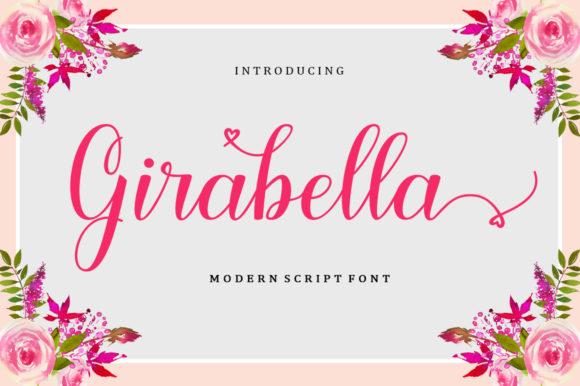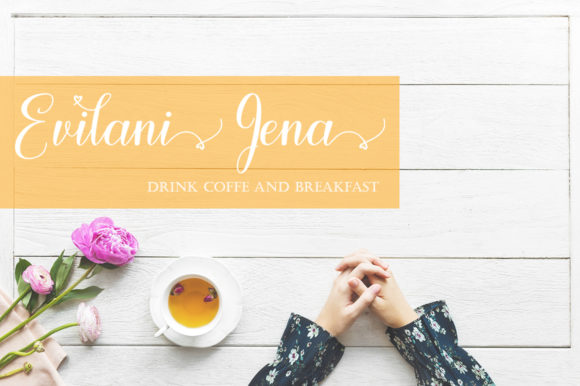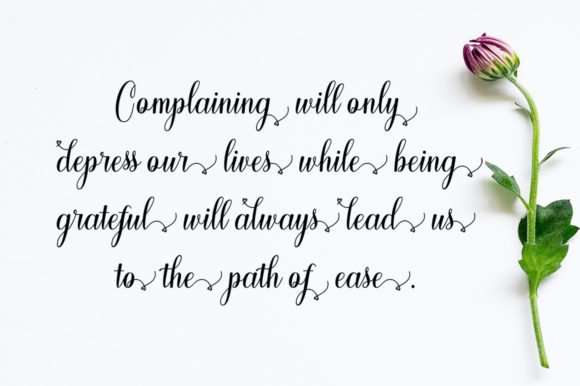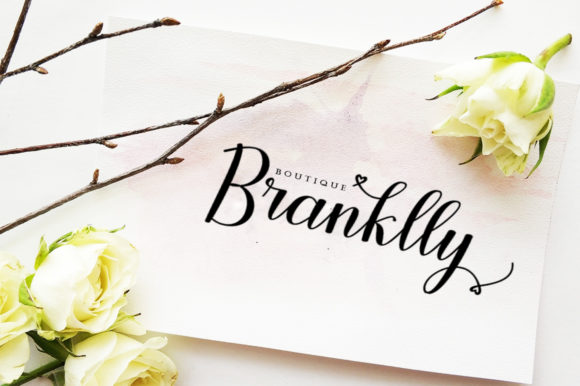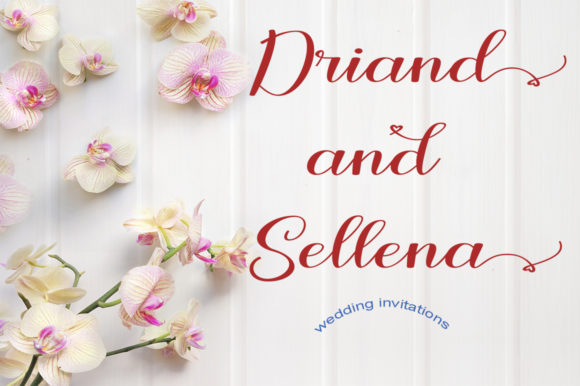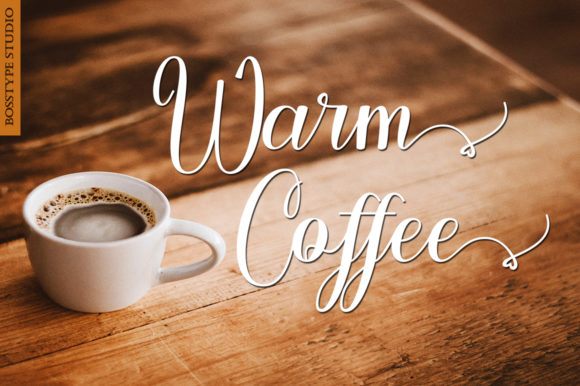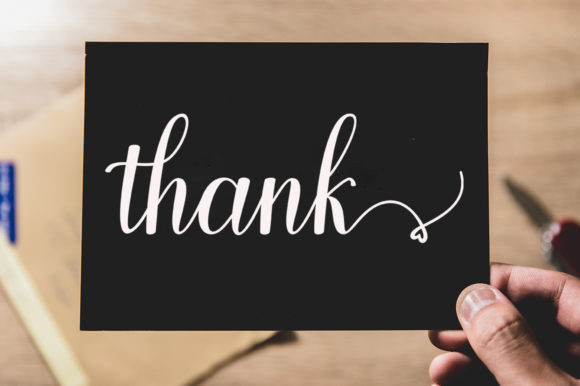
HomeScript FontsGirabella Font Script Fonts Girabella Font FacebookXPinterestWhatsApp Girabella Font Poster 2 Girabella Font Poster 3 Girabella Font Poster 4 Girabella Font Poster 5 Girabella Font Poster 6 Girabella Font Poster 7 About Girabella Font Girabella is a beautiful & elegant handwritten script. Fall in love with its lovely curves! DOWNLOAD ON CREATIVE FABRICAThis font is sold and delivered by Creative Fabrica. Font Canyon may earn a commission if you buy through this link. People also explored Kunio Variable Saturday Font Wizard Font Modelont Font Englebert Pro Slavery Font Darkas Font Cynthia Script Font Cherlina Font 333 0 TagsGirabella Font Previous articleValentine Bees FontNext articleFonument Font LEAVE A REPLY Cancel reply Comment: Please enter your comment! Name:* Please enter your name here Email:* You have entered an incorrect email address! Please enter your email address here Website: Save my name, email, and website in this browser for the next time I comment. Personal Use Free Machine House Personal Use Free Read more about this font Christmas Diary Personal Use Free Read more about this font Spaghetti Personal Use Free Read more about this font The Bocah Personal Use Free Read more about this font BLOG Free vs Paid Fonts: Why Investing in Premium Fonts Is Worth It Free vs Paid Fonts: Why Premium Fonts Are Worth It in 2025 The debate of free vs paid fonts continues in the design world. While... Top 10 Handwritten Fonts That Elevate Your Designs Transform Your Website: Elevate Your Typography with 7 Best Web Font Generators To increase your work productivity, choose the most readable fonts.